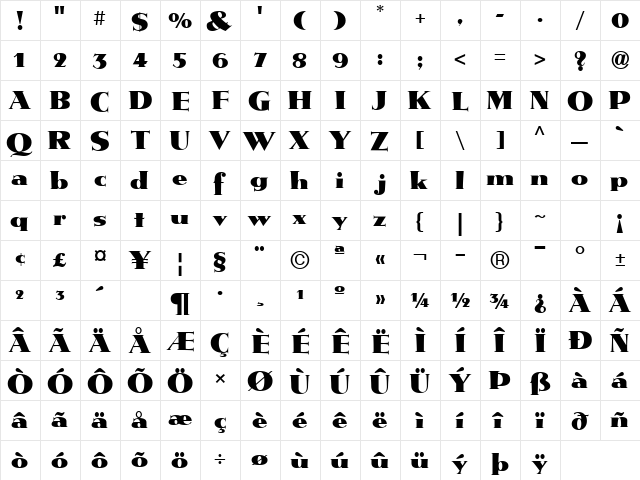
MetropolisICG Regular
Design Context for MetropolisICG Typeface
MetropolisICG is a composed and adaptable typeface that performs quietly and consistently across a wide range of design contexts.
Pro Tip: Pair MetropolisICG with a font of contrasting weight or personality to build a more expressive typographic hierarchy.